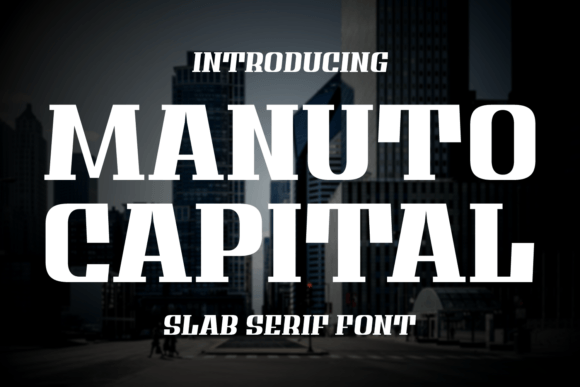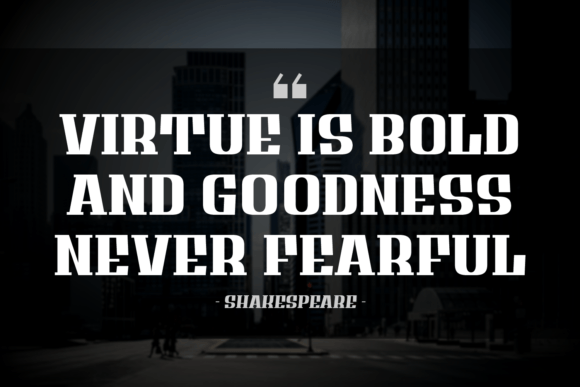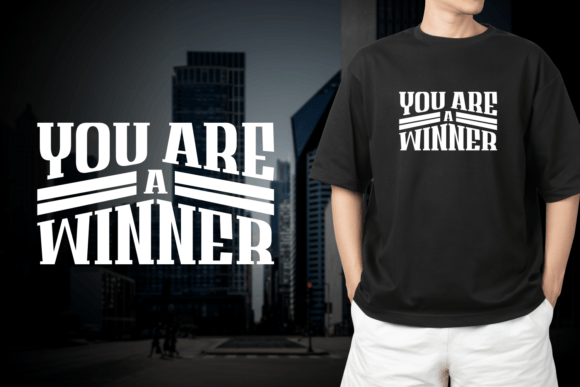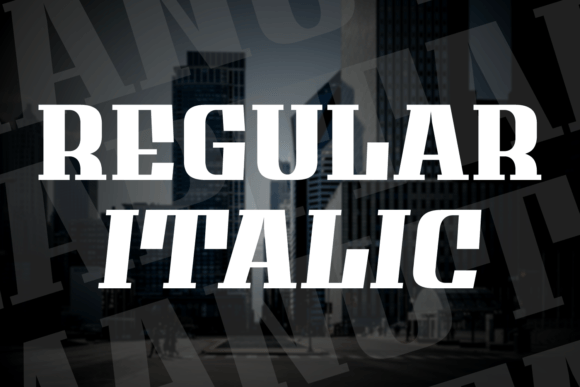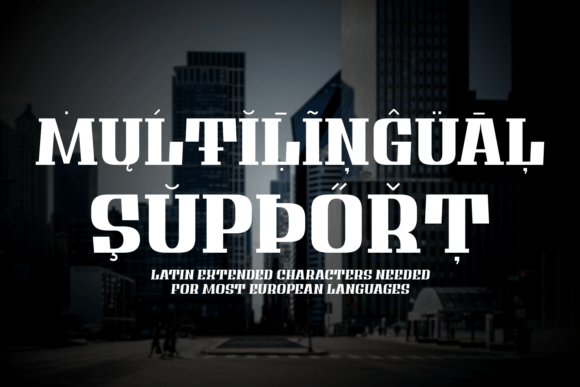
About Manuto Capital Font
Manuto Capital is a strong and bold slab serif font that commands attention with its confident and straightforward design. Its sturdy and distinct letterforms make it a reliable choice for conveying a sense of authority and professionalism. Ideal for headlines, logos, and branding, Manuto Capital brings a robust and classic aesthetic to your projects. Elevate your typography with this no-nonsense slab serif font that exudes strength and stability in every character.